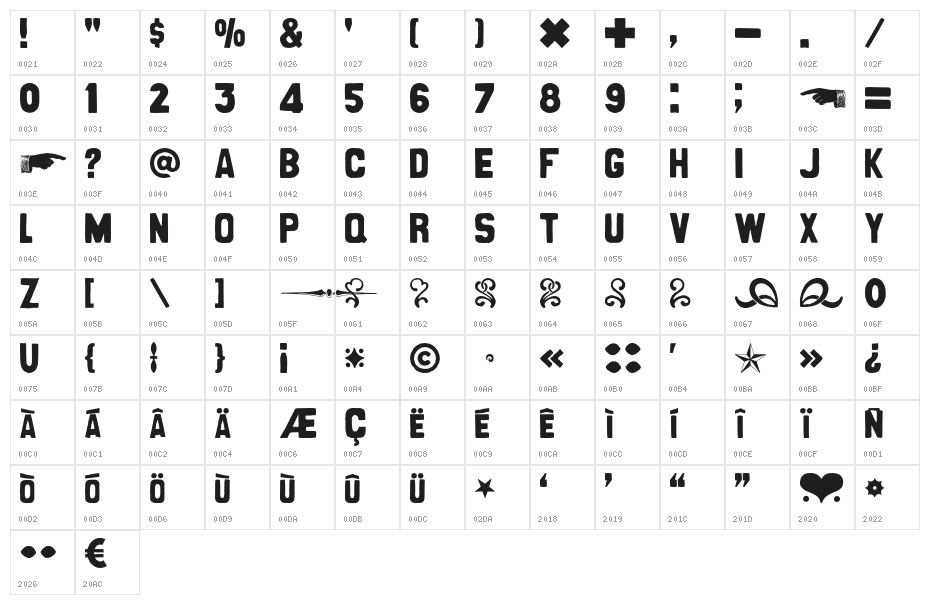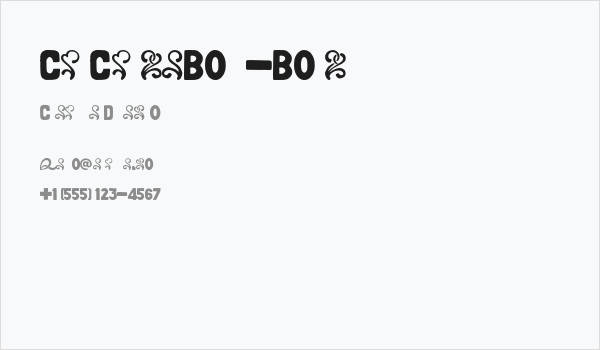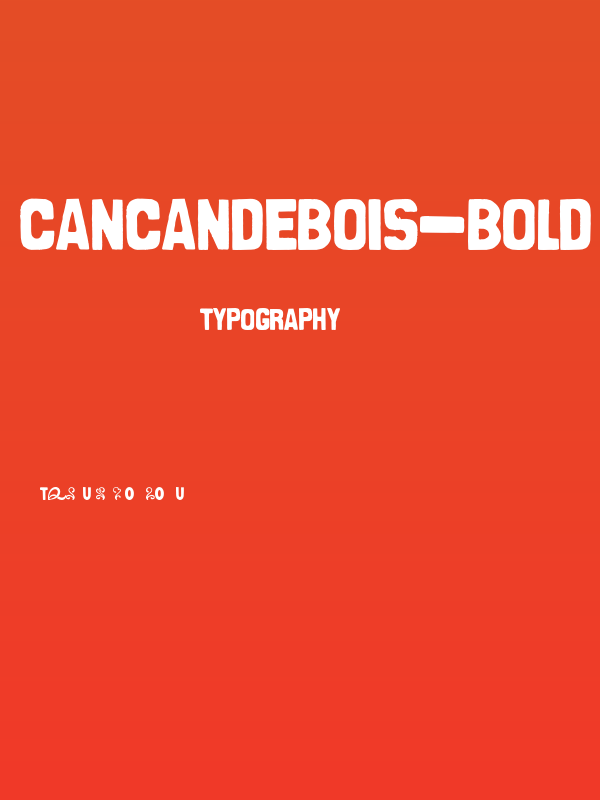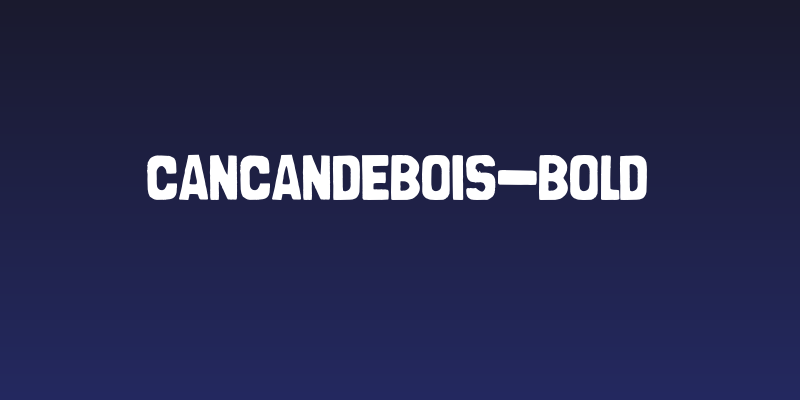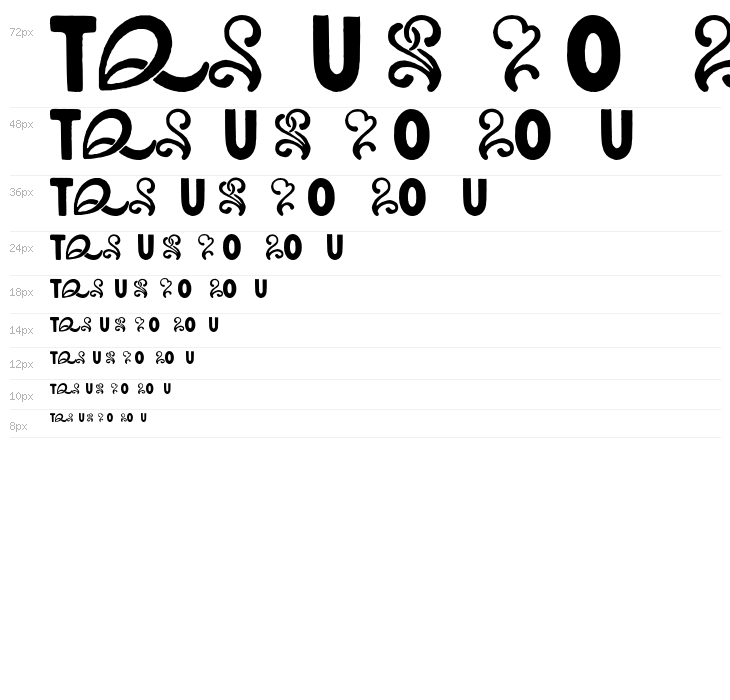
CanCandeBois-Bold Font
CanCandeBois-Bold Description
This font features bold, thick strokes with a strong presence, making it ideal for impactful designs. The uppercase letters are robust and commanding, while the numerals maintain a consistent weight, ensuring readability. The special characters are uniquely styled, adding a decorative touch to the overall design. The font's boldness is complemented by its slightly condensed width, which allows for efficient use of space without compromising on legibility. The contrast in stroke thickness is low, providing a uniform appearance across all characters. This font is well-suited for projects that require a strong visual impact, such as posters, headlines, and branding materials.
| Proposed Projects | Ideal for posters, headlines, branding, and any design requiring a strong visual impact. |